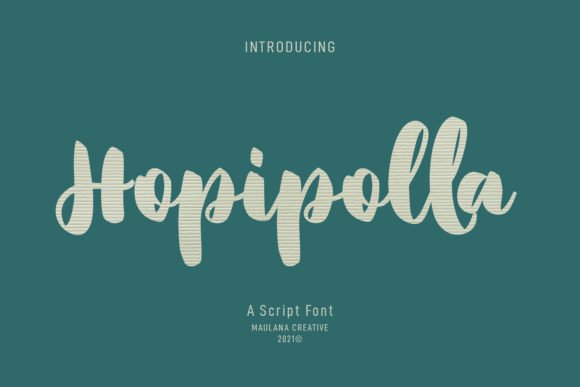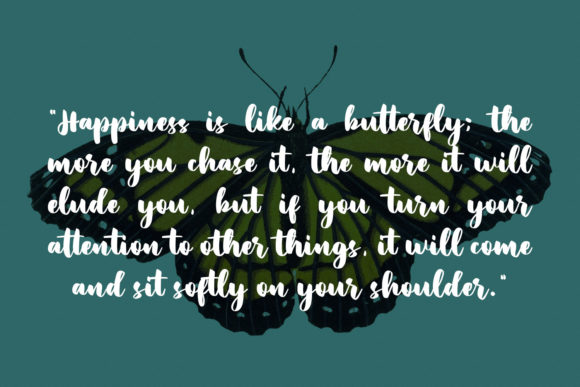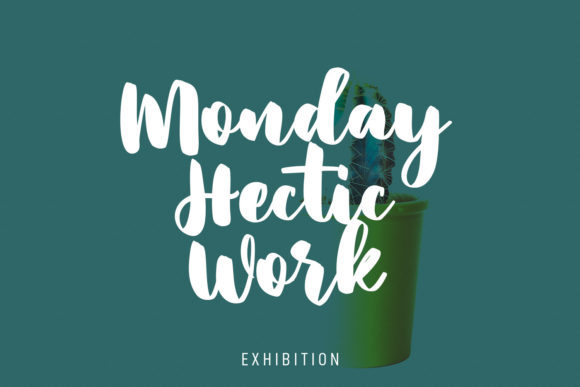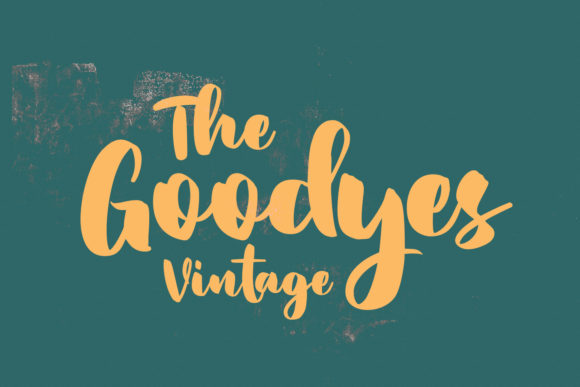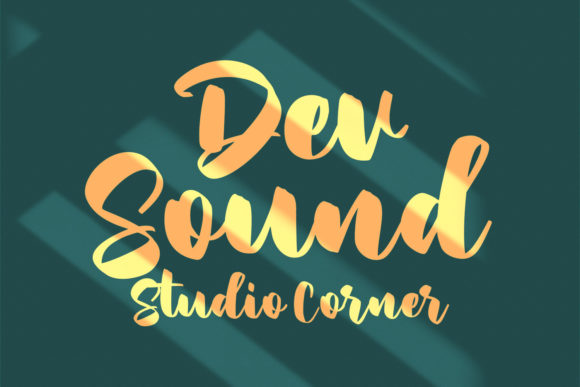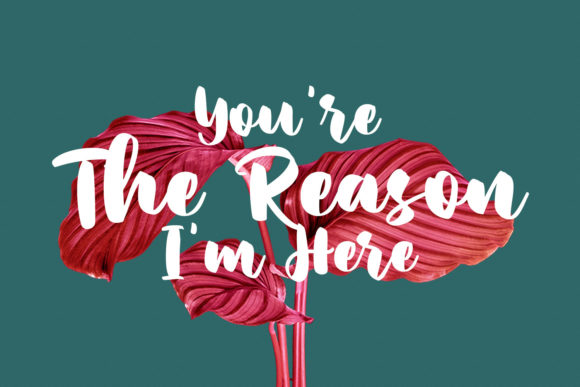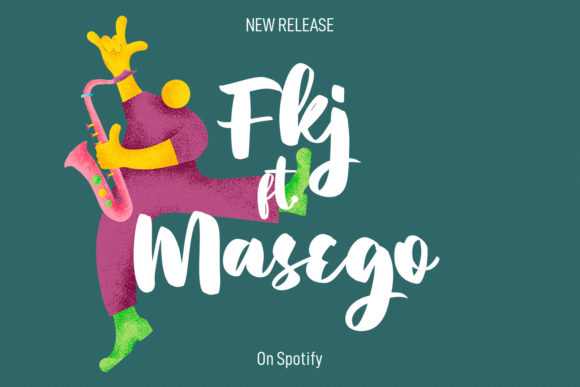
Discover the Magic of Hopipolla Font
There’s something about sitting at your desk, staring at a blank page, and suddenly, a spark of creativity ignites within you. Your mind starts racing with ideas, and before you know it, you’re scribbling down notes and sketching out designs. It’s a feeling every designer knows and loves.
And that’s exactly what inspired us to explore the world of typography and discover the perfect font to match our creative vision. Enter Hopipolla Font, a chic and trendy script font that’s sure to elevate your designs to the next level. With its stylish alternates and ligatures, Hopipolla Font is the perfect match for any project, from wedding invitations to social media graphics.
For designers, Hopipolla Font is a valuable asset that can help bring your ideas to life. Its incredibly versatile style makes it easy to use and customize, allowing you to create spectacular designs that wow your audience. So why not fall in love with the Hopipolla Font and see where your creativity takes you?
Hopipolla Font Key Features
- Unique Characteristics: Hopipolla Font features a playful, handwritten style with unique letterforms and flourishes, adding a touch of personality to any design.
Hopipolla Font Review
I’ve had the chance to work with the Hopipolla font, and I must say it’s a unique addition to any design project. ✨ One of the things that stands out is its high level of expressiveness. The font’s irregularities and flourishes give it a hand-drawn feel that’s perfect for creative projects.
- Expressive and unique design
- Perfect for creative projects, such as branding or advertising
- Available in a range of weights and styles
However, there are some limitations to consider. ⚠️ The font can be quite difficult to read in smaller sizes, and some of the characters may be hard to distinguish from one another. Additionally, the font’s irregularities can make it challenging to use in situations where a more uniform look is required.
Overall, I think the Hopipolla font is a great choice for designers who want to add some personality to their projects. While it may not be suitable for every situation, it’s definitely worth considering for projects that require a unique and creative touch.
Getting the Most Out of Hopipolla Font
To get the most out of Hopipolla Font, use it for:
- Titles and headings for a playful, modern look.
- Quotes and phrases for a whimsical touch.
- Branding and logos for a unique, eye-catching design.